Halloween Color Font Bundles for Shirts, Crafts, and Seasonal Designs
The best Halloween color font bundles do more than fill letters with orange and purple. They give a design its personality before you add a single pumpkin, ghost, or cobweb.
Some sets lean sweet and kid-friendly. Others use bones, slime, candy, retro flowers, or distressed textures to make the lettering itself the main illustration. That can save a lot of layout time when you are creating shirts, treat bags, party invitations, classroom signs, stickers, or social graphics.
I narrowed this list to Halloween color fonts and collections that offer a useful visual hook, multiple styles, matching artwork, or enough character to carry a finished design.
I prioritized products with multiple font variations, matching doodles, alternate colorways, or downloadable PNG elements. I also looked for clear project applications rather than choosing thirteen fonts that all produce the same bubbly Halloween look.
1. Groovy Halloween
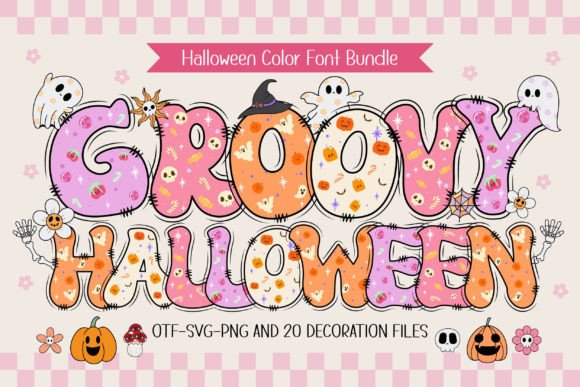
My top all-around pick is Groovy Halloween. It combines a rounded retro letter shape with a playful Halloween palette, giving it more warmth than a traditional horror font.
The collection includes four font styles and 20 matching clip-art elements. That combination is useful for building coordinated shirt graphics, invitations, stickers, and social posts without searching for a second illustration pack.
I would use it for designs that need to feel seasonal but not frightening. The chunky letterforms should hold up better in headlines and names than in small paragraphs. It is especially suited to the current crossover between 1970s-inspired typography and cute Halloween graphics.
Best for: Retro shirts, party invitations, sticker sets
Key features: Four styles, 20 matching clip-art elements, rounded retro lettering, full-color design
2. Halloween Spooky
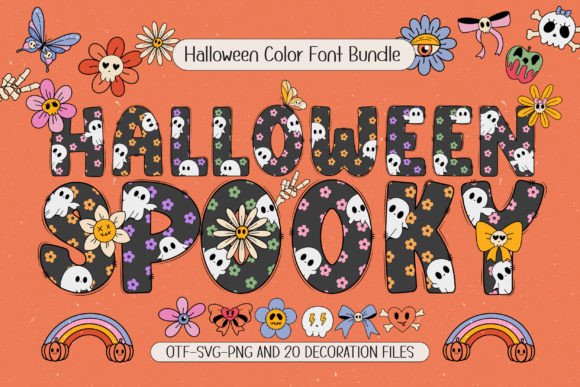
Halloween Spooky is a flexible option for designers who want one collection to cover several coordinated products.
It includes four font styles and 20 matching clip-art pieces. The illustrated details give the alphabet a friendly spooky-season personality, while the multiple treatments make it easier to create a collection without repeating the exact same lettering on every item.
My take is that this set fits family events, craft fairs, personalized name designs, and sublimation products better than genuinely dark Halloween branding. Its main strength is cohesion: the font and doodles already share a visual language.
Best for: Personalized names, sublimation, family Halloween products
Key features: Four color styles, 20 doodles, coordinated graphics, playful Halloween theme
3. Spooky Halloween Bundle
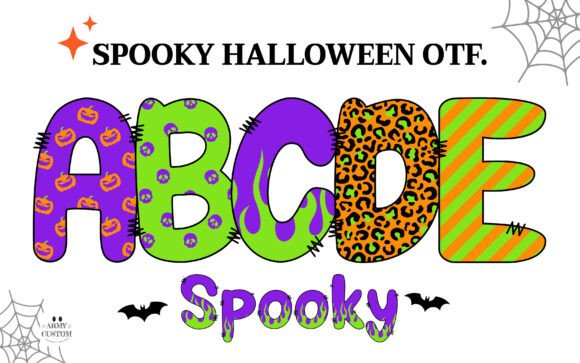
Spooky Halloween Bundle is one of the more practical choices for designers who move between font-supporting and non-font-supporting software.
The primary files use OTF color-font technology, while bonus PNG files provide another way to work with the alphabet in programs that cannot display OpenType-SVG color data. The product page lists support for compatible versions of Photoshop and Illustrator and explicitly includes PNG alternatives.
That extra format flexibility is why this bundle ranks highly for me. A beautiful font is not especially helpful when a client’s software renders it incorrectly. PNG letters take more manual placement, but they can rescue a project when live color-font support is unavailable.
Best for: Mixed-software workflows, printable alphabets, digital compositions
Key features: Color OTF font, bonus PNG files, multicolor Halloween styling, Adobe compatibility
4. Halloween Star
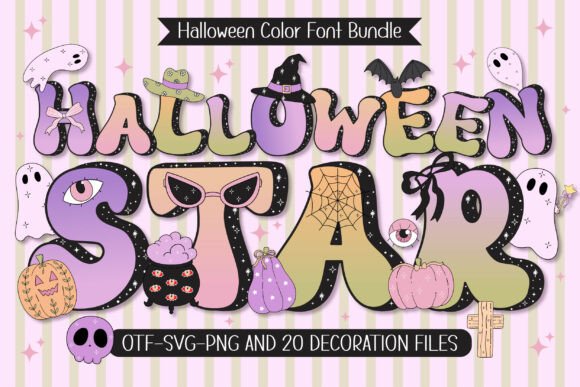
Halloween Star brings a brighter, more decorative direction to Halloween typography.
The set contains four color-font styles and 20 matching doodles. Its listed applications include posters, shirts, invitations, banners, stickers, scrapbook pages, and DIY crafts.
I would reach for this one when a layout needs energy rather than gloom. Star motifs naturally add movement around a word, making the font useful for short phrases, children’s merchandise, party signage, and designs built around names.